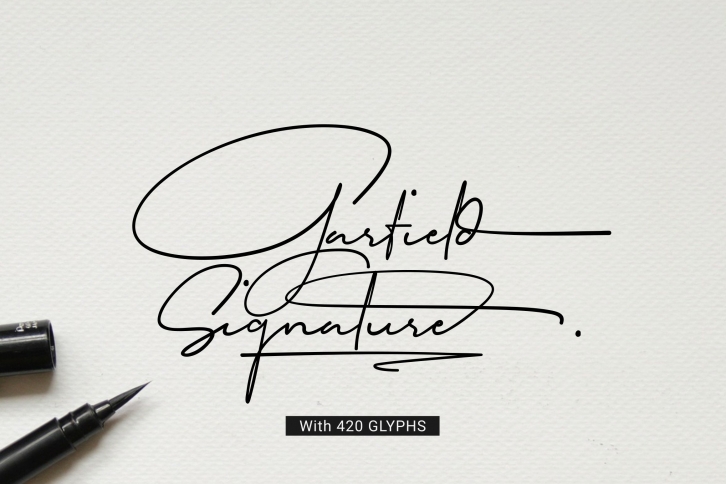
Garfield Signature FONT Download
Garfield Signature is a gorgeous font that was realeased on September 23, 2022. The font can be used in many style contexts and design environments. Perfect for invitations, magazines, websites, logos, and more! It was designed by marunstudio and the file size is 4.54 MB. Thanks for checking out this font!